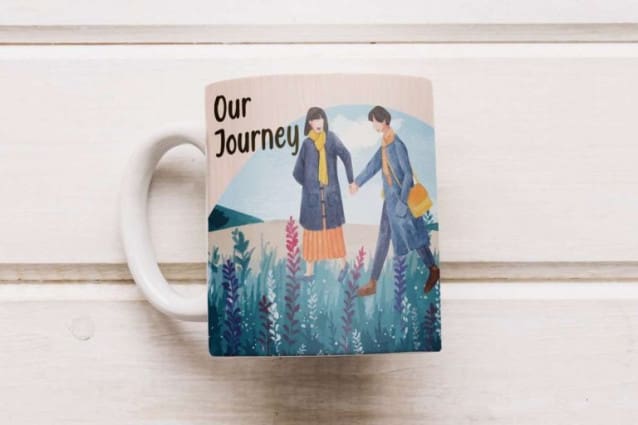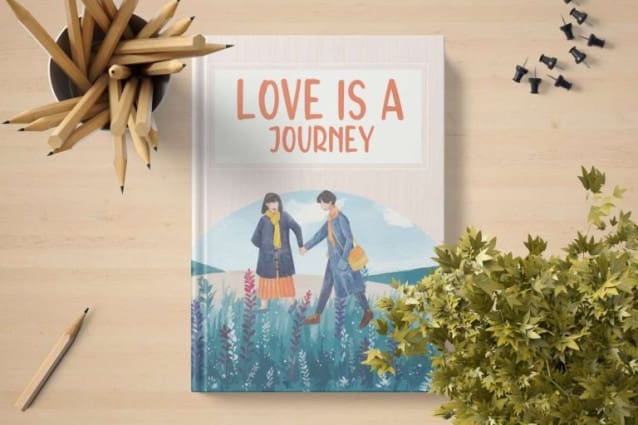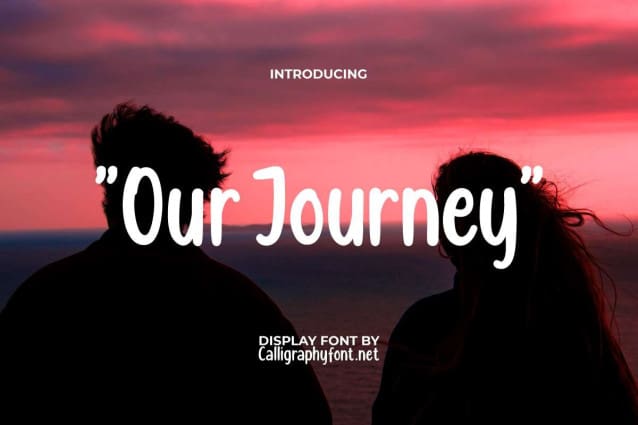
Our Journey Font
Our Journey Font is a beautiful and friendly display font that brings a handcrafted touch and will brighten up any of your designs, such as blogs, brand identity, brochure, business cards, cover, flyer, greeting cards, header, invitation, logos, text on mug design, quotes, screen print, title, website, or anything that requires a happiness look!
Our Journey Font is pleased to present gentle typography based on amazing handwriting. It’s perfect for completing projects no matter the industry, such as accessories and merchandise, architect, author, cafe, event organizer, fashion, florist, furniture, graphic design, handicraft, interior design, movie, printing, publishing, retail, and more.